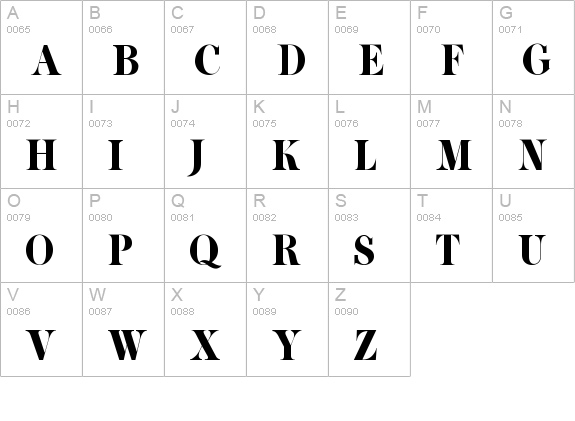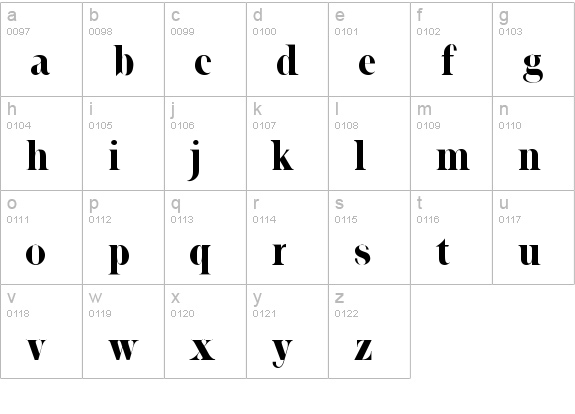
TomsRoman Font Details
TomsRoman is a timeless and versatile font that exudes elegance and sophistication. Its classic serifs and clean lines make it an ideal choice for a wide range of design projects, from formal invitations to professional presentations. With its balanced proportions and graceful curves, TomsRoman adds a touch of refinement to any text. Whether you're creating a logo for a high-end brand or designing a wedding invitation, this font will elevate your design to new heights. One of the best things about TomsRoman is that it is available for free. You can easily download it at FontsMarket.com, where you'll find a vast collection of high-quality fonts for all your design needs. TomsRoman is not only visually stunning but also incredibly easy to read. Its clear and legible characters ensure that your message is communicated effectively, no matter the size or format. This font is perfect for both print and digital projects, as it maintains its elegance and readability in any medium. Its versatility allows it to be used in a variety of design styles, from traditional to modern, making it a must-have for any designer's toolkit. Whether you're a professional graphic designer or a casual enthusiast, TomsRoman is a font that will inspire and enhance your creations. Download it for free today at FontsMarket.com and unlock the endless possibilities of this timeless typeface.